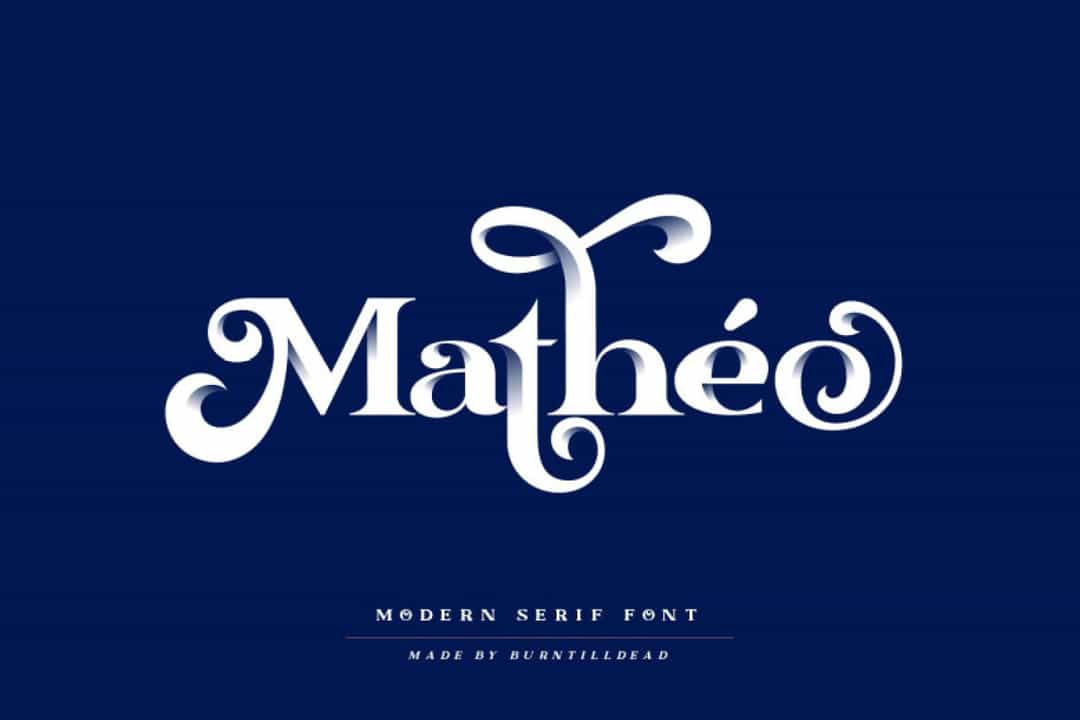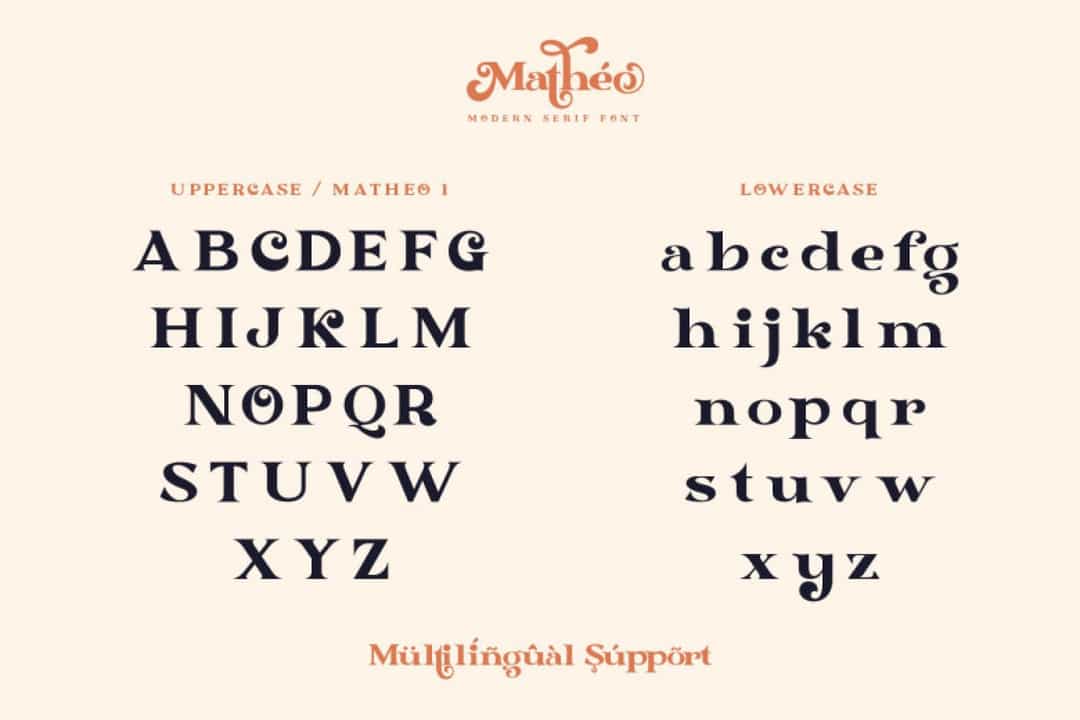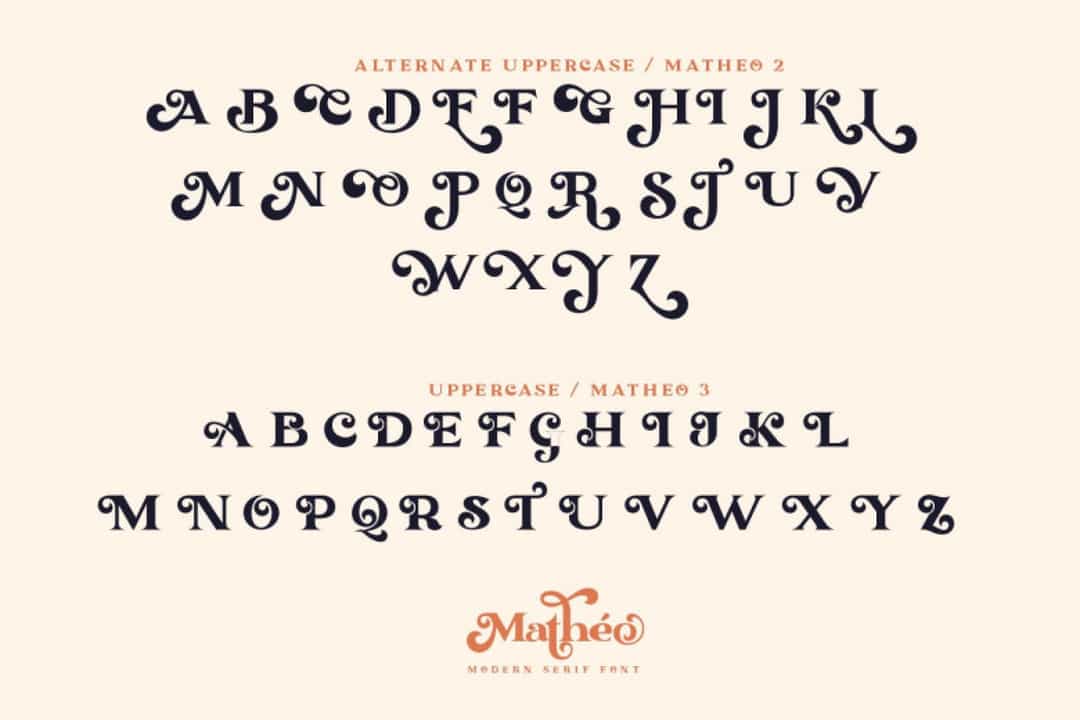
Matheo Serif Font is an elegant, modern, and exquisitely detailed serif typeface created by Burntilldead. Encoded with PUA, you have easy access to its glyphs, swashes, and characters! Fall for its beautiful style and use it to craft stunning designs!